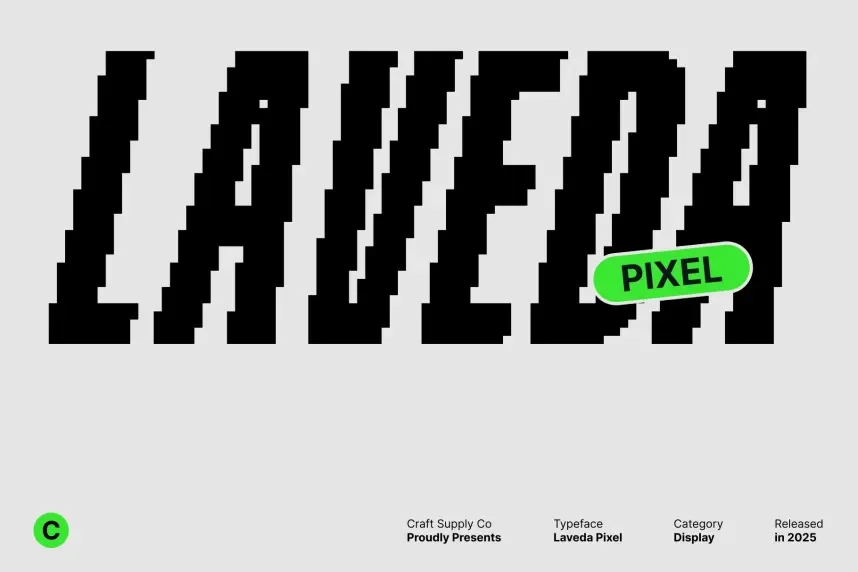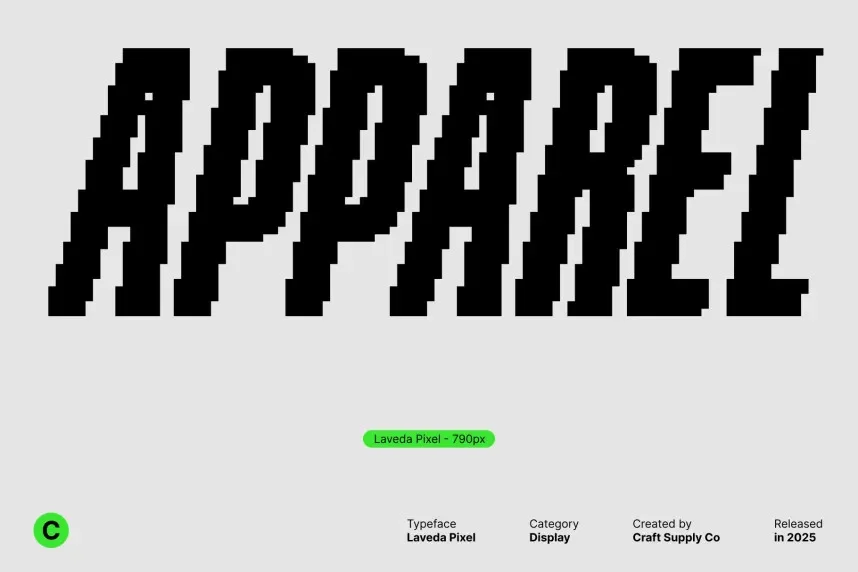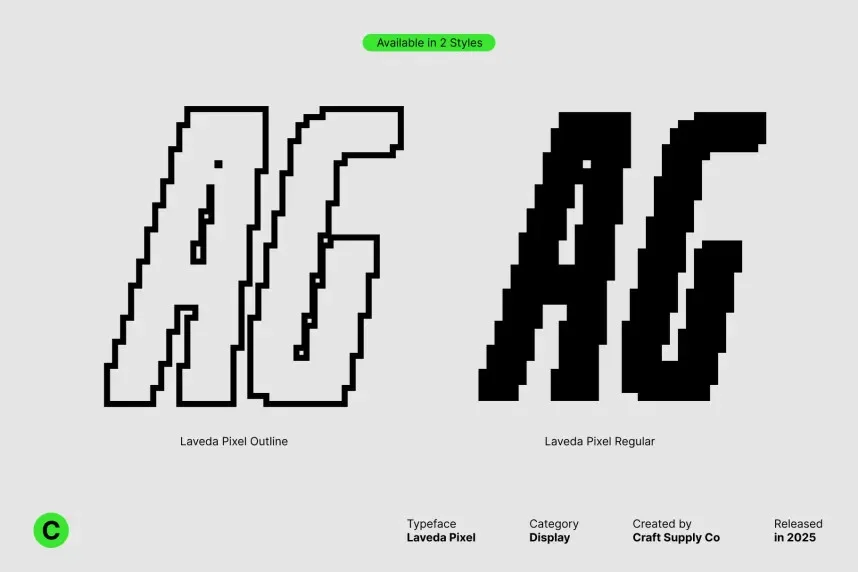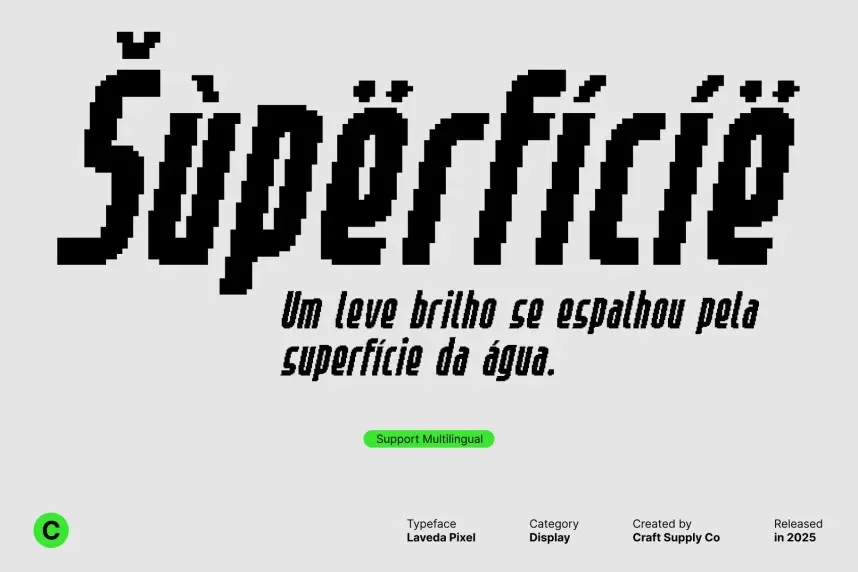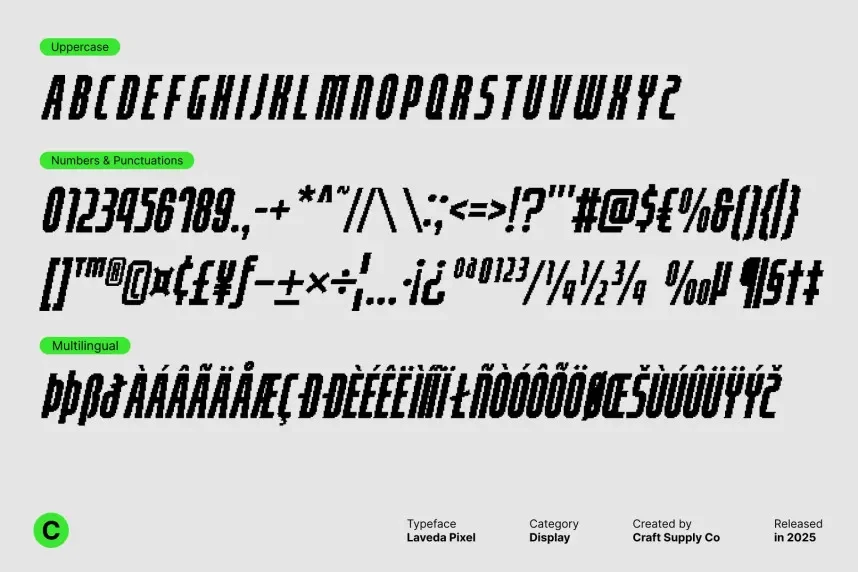
Laveda Pixel Font is a bold, square-shaped typeface with a strong, futuristic pixel structure. Its uniform strokes and high legibility make it perfect for projects that need clear, attention-grabbing designs, such as gaming branding or website typography.